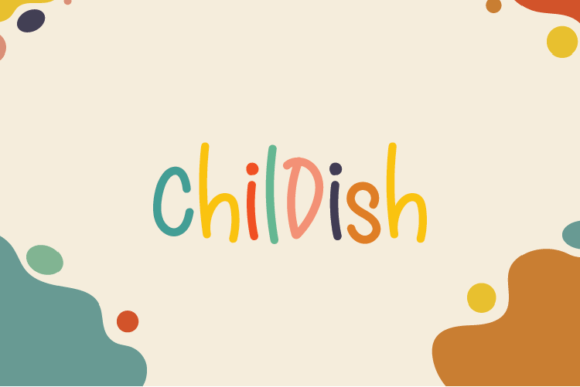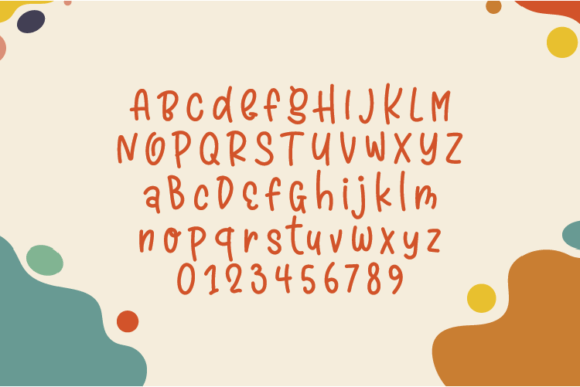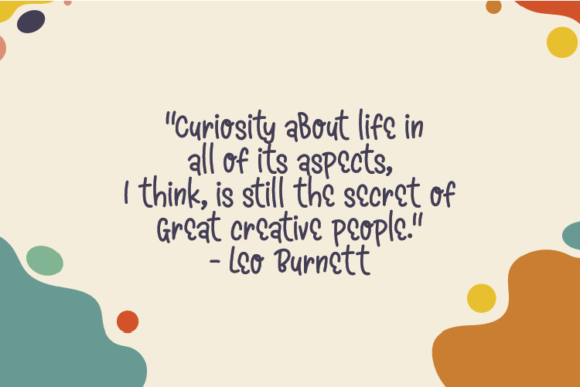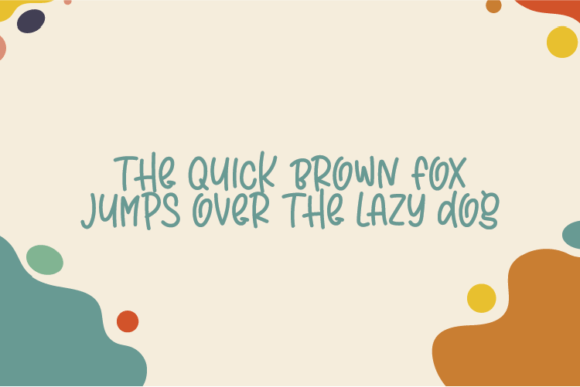
Childish Font
About Childish Font
“Childish” is a natural and casually handwritten font that adds a touch of authenticity and informality to your designs. This font is a valuable asset to your font library, as it has the potential to enhance a wide variety of creative creations, regardless of the topic or theme.
The charm of “Childish” lies in its ability to convey a sense of spontaneity and naturalness. The font’s handwritten style creates a warm and genuine aesthetic that can complement a wide range of design projects.
One of the standout features of “Childish” is its versatility. It can seamlessly adapt to different design themes and moods, making it suitable for various applications. Whether you’re aiming for a playful and carefree look or a more down-to-earth and approachable style, “Childish” is a font that can deliver.
When you incorporate “Childish” into your designs, you can expect your projects to exude a sense of authenticity and charm. This font has the power to create a memorable and engaging visual experience for your audience, making it a valuable asset for your creative endeavors.
In summary, “Childish” is not just a font; it’s a design asset that can enhance your creative projects with its natural and casual appeal. Its versatility makes it a valuable addition to your design toolkit. Feel confident in using “Childish” to enhance any creation, as it has the potential to bring an authentic and approachable touch to your designs!